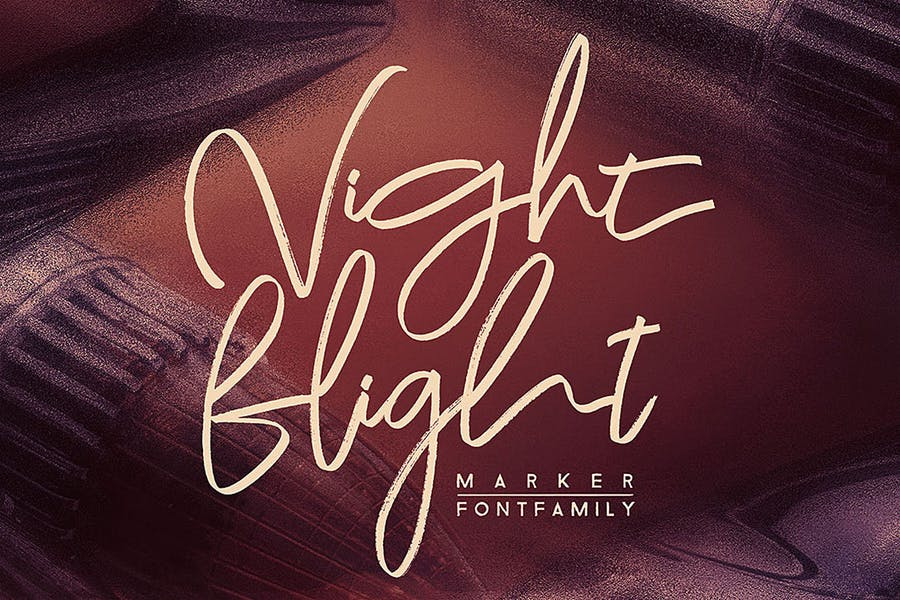
Night Flight Marker Brush Font
Night Flight Marker Brush Font is perfect for aviation-themed brands, airport lounge signage, travel adventure companies, airline marketing materials, pilot training academies, aviation museums, aircraft manufacturer communications, flight simulation gaming, aerospace technology presentations, and nocturnal travel experiences.
Night Flight Marker Brush Font creates excitement because it embodies the thrilling adventure and nocturnal sophistication of aviation with its dynamic brush letterforms and flight-inspired character design. The font's energetic strokes and aeronautical aesthetic instantly convey freedom and aviation excellence, making any brand appear adventurous and authentically connected to flight culture. Its carefully crafted aviation details and night-flight character create an immediate sense of aerial adventure that captivates audiences seeking aviation experiences, travel excitement, and products that celebrate the transformative power of flight and nocturnal aviation adventures.
The Night Flight Marker Brush Font family includes multiple weights and styles: Regular, Bold, Light, Medium, Italic, Condensed, Extended, Aviation, Nocturnal, and Adventure versions. Each variant maintains the font's signature flight character while offering different levels of aviation styling and adventure authenticity suitable for various travel and aerospace applications.